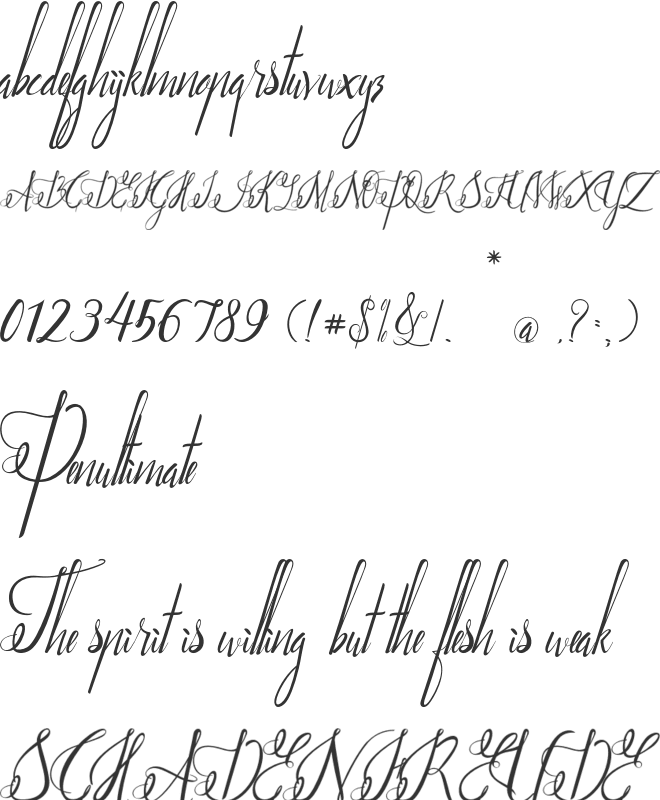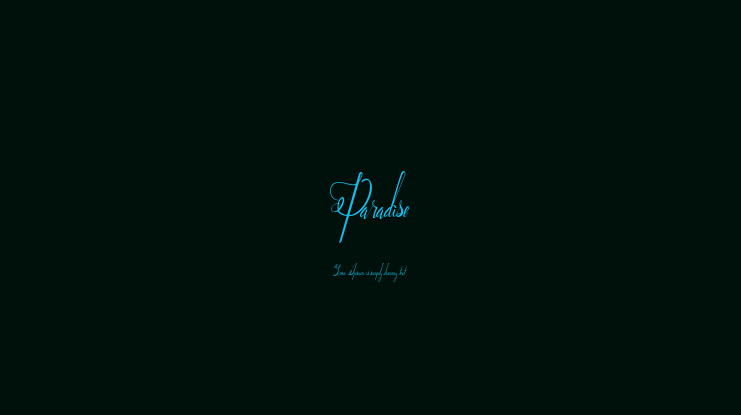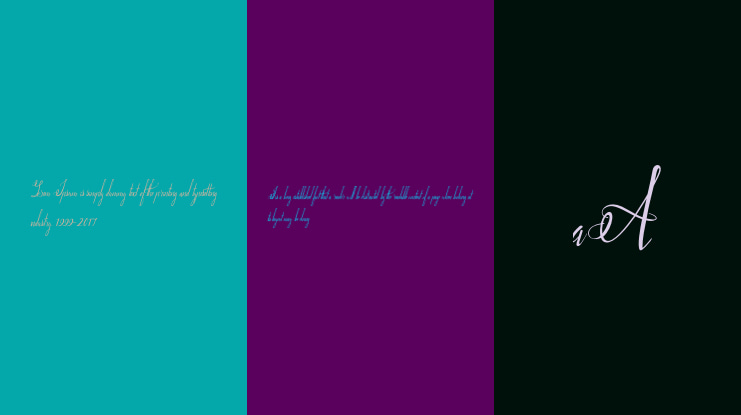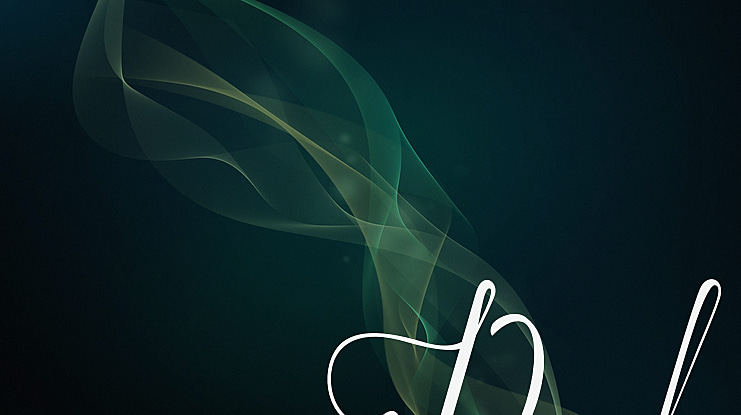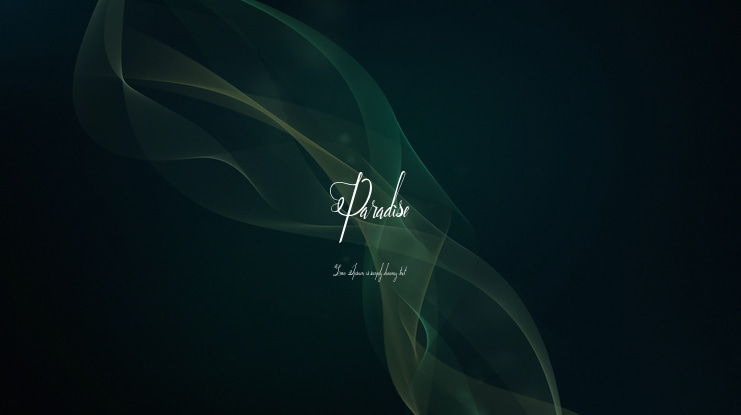
Paradise Font
Paradise was inspired by handwriting typography. The font is a really great typeface for your title, quotes, and body text.Features: Uppercase, Lowercase, Numeric, Punctuation, Alternate Characters and Ligatures.Purchase a commercial license at [https://pixlr.com/stock/details/100400592-paradise-typeface/].